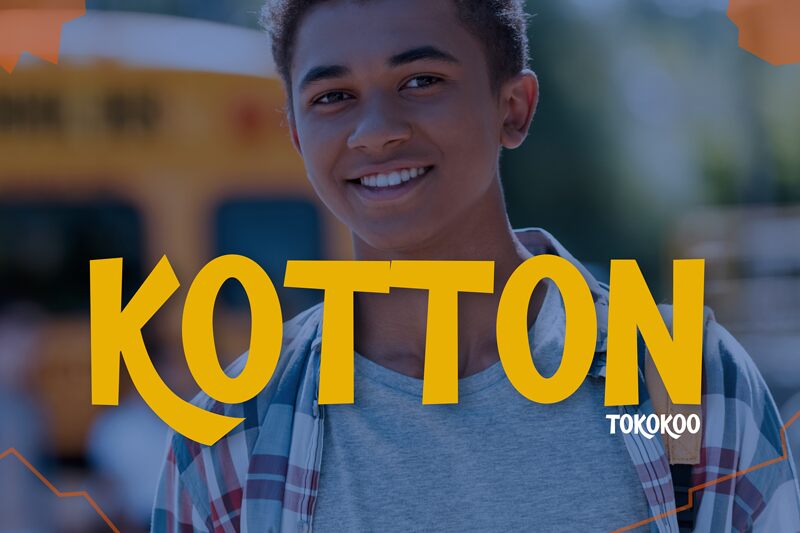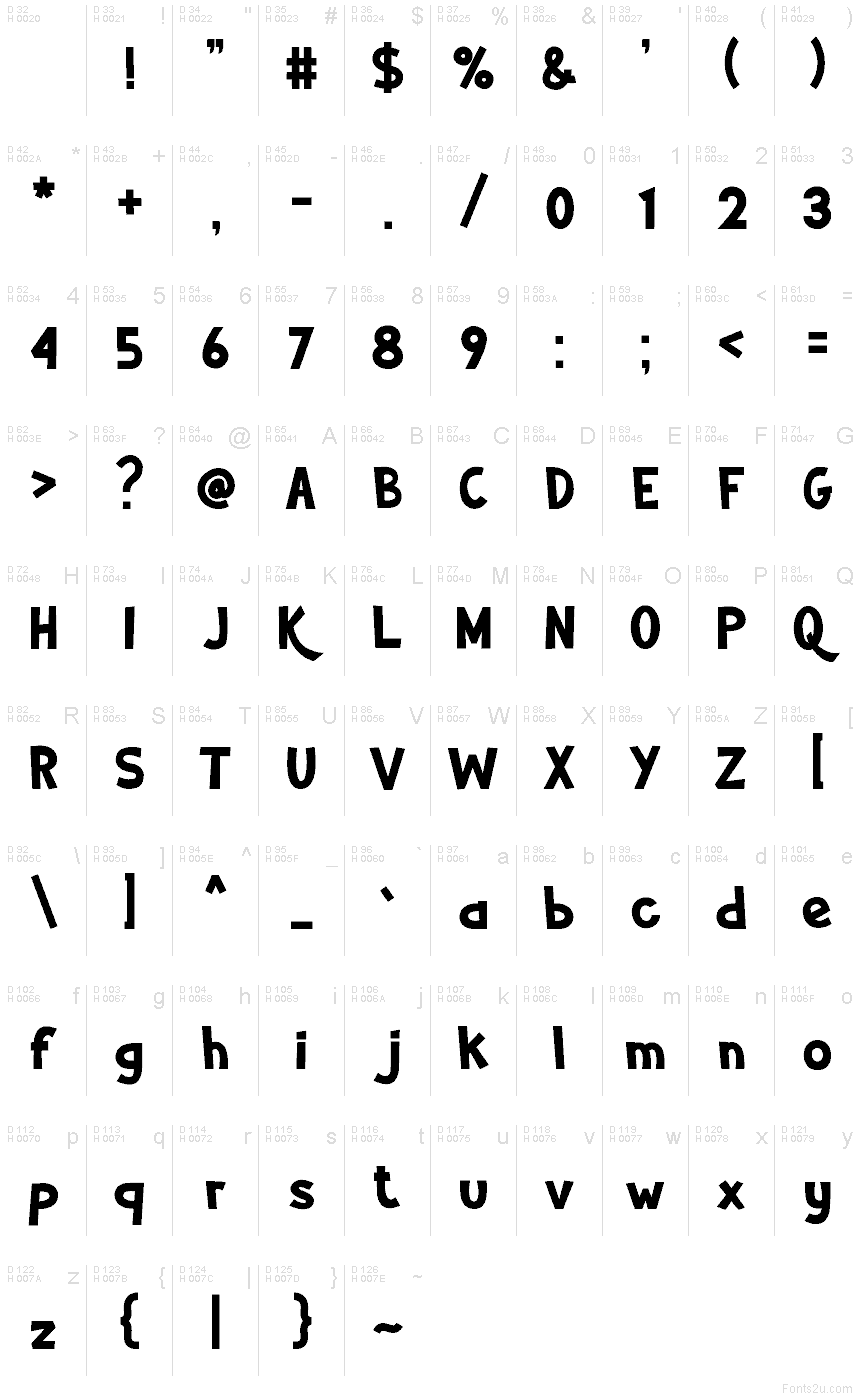
Kotton
Kotton font by Tokokoo Studio is a free cartoon display typeface with a bold, inky charm that feels hand-cut and full of bounce. Its chunky letters, rounded corners, and swoopy curves give every word a friendly grin, like signage from a playful neighborhood candy shop. The rhythm is loose but confident, so even short titles look energetic and fun without becoming messy or hard to read.
Using Kotton, this free font shines on kids’ branding, snack and toy packaging, playful logos, game titles, YouTube thumbnails, and bright event posters. The heavy shapes hold color beautifully, especially in big headlines and centered compositions. For longer supporting text, pair Kotton with a simple geometric sans in a lighter weight to keep things clear while letting Kotton carry the personality.